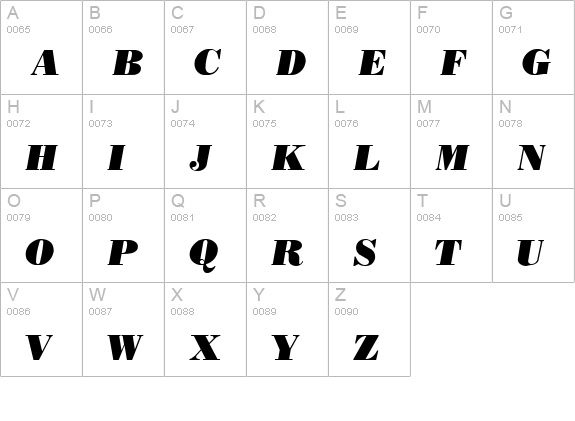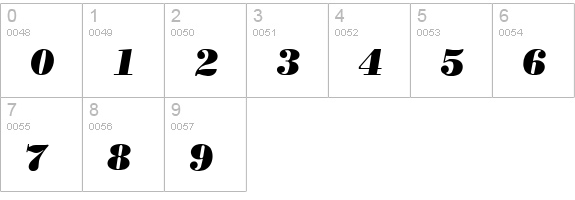
QTBodiniPoster Italic Font Details
QTBodiniPoster Italic is a distinctive, italic variant in the QTBodiniPoster typeface family \xE2\x80\x94 well suited to design and typography projects.
QTBodiniPoster Italic is a stunning and sophisticated font that exudes elegance and charm. With its graceful curves and gentle slant, this font adds a touch of sophistication to any design project. Whether you're creating wedding invitations, branding materials, or editorial layouts, QTBodiniPoster Italic will elevate your designs to new heights. The Italic style of this font adds a sense of movement and fluidity, making it perfect for conveying a sense of grace and refinement. The strokes are delicately tapered, creating a harmonious balance between strength and subtlety. This font is the perfect choice for those looking to add a touch of class to their designs. But what sets QTBodiniPoster Italic apart is that it is not only beautiful but also free! Yes, you read that right. This incredible font is freely available to download at FontsMarket.com. Now you can enjoy the elegance and sophistication of QTBodiniPoster Italic without breaking the bank. So go ahead and download QTBodiniPoster Italic today and bring a touch of timeless beauty to your designs. Whether you're a professional designer or a hobbyist, this font will inspire and delight. Don't miss out on this opportunity to enhance your projects with the beauty and grace of QTBodiniPoster Italic.